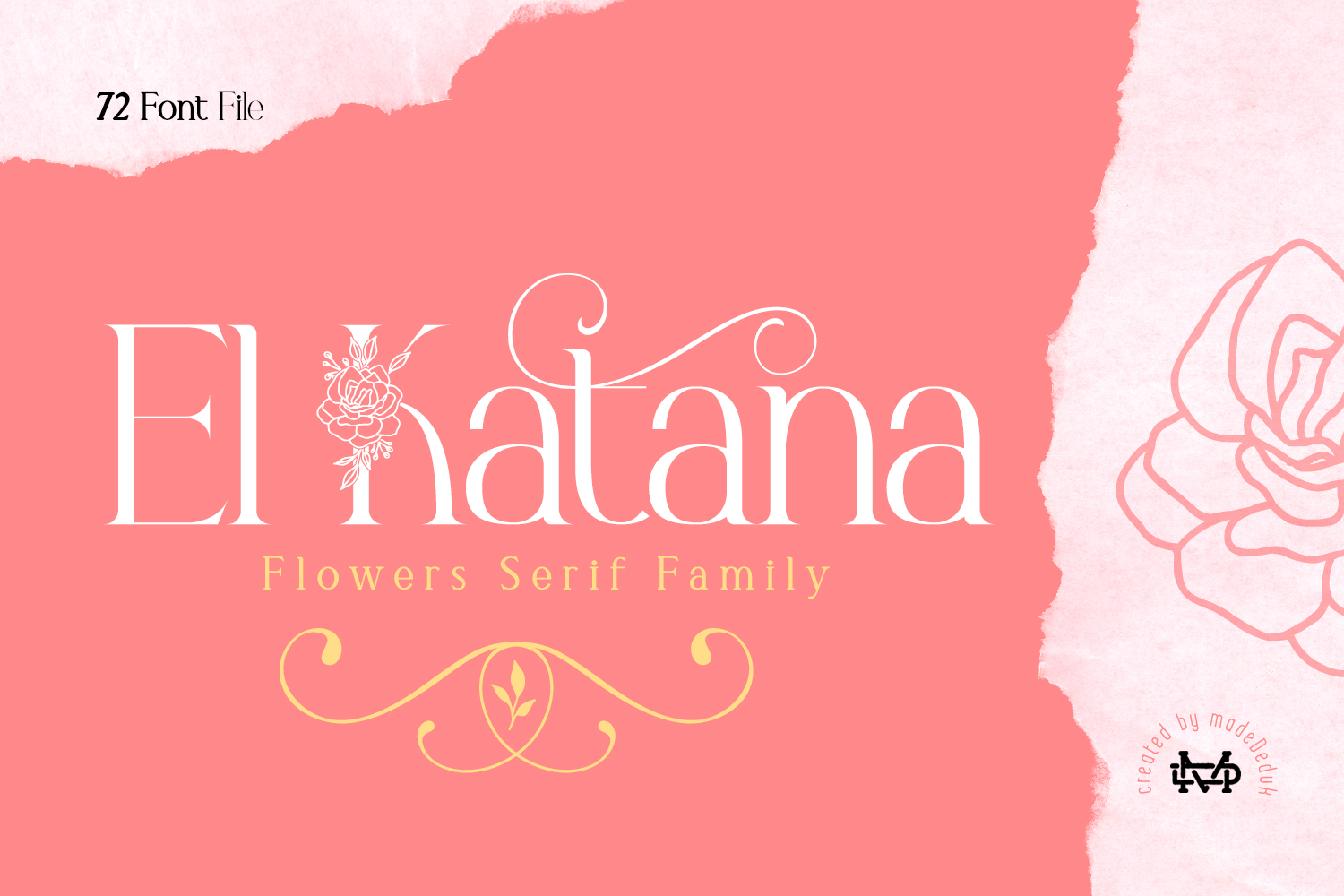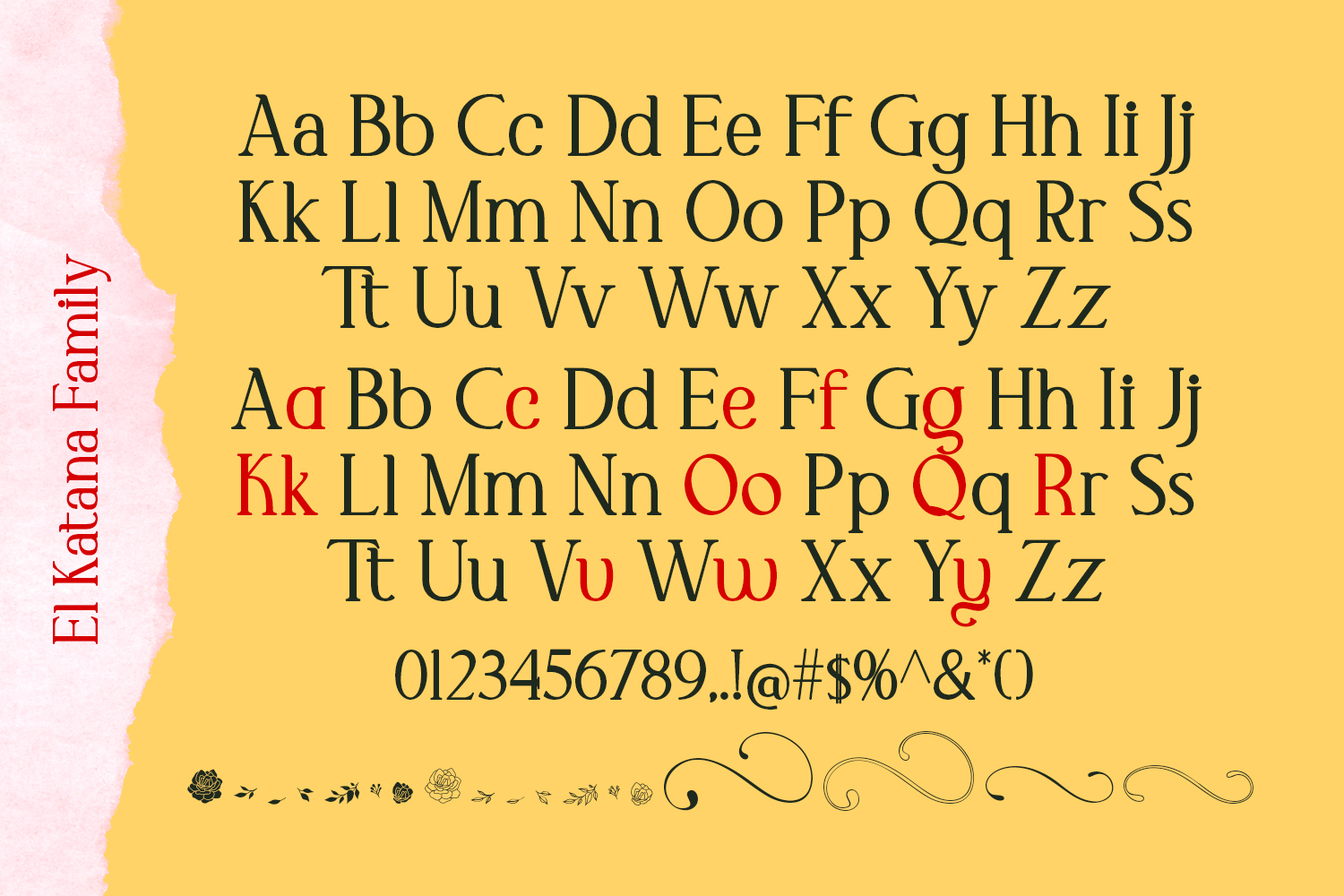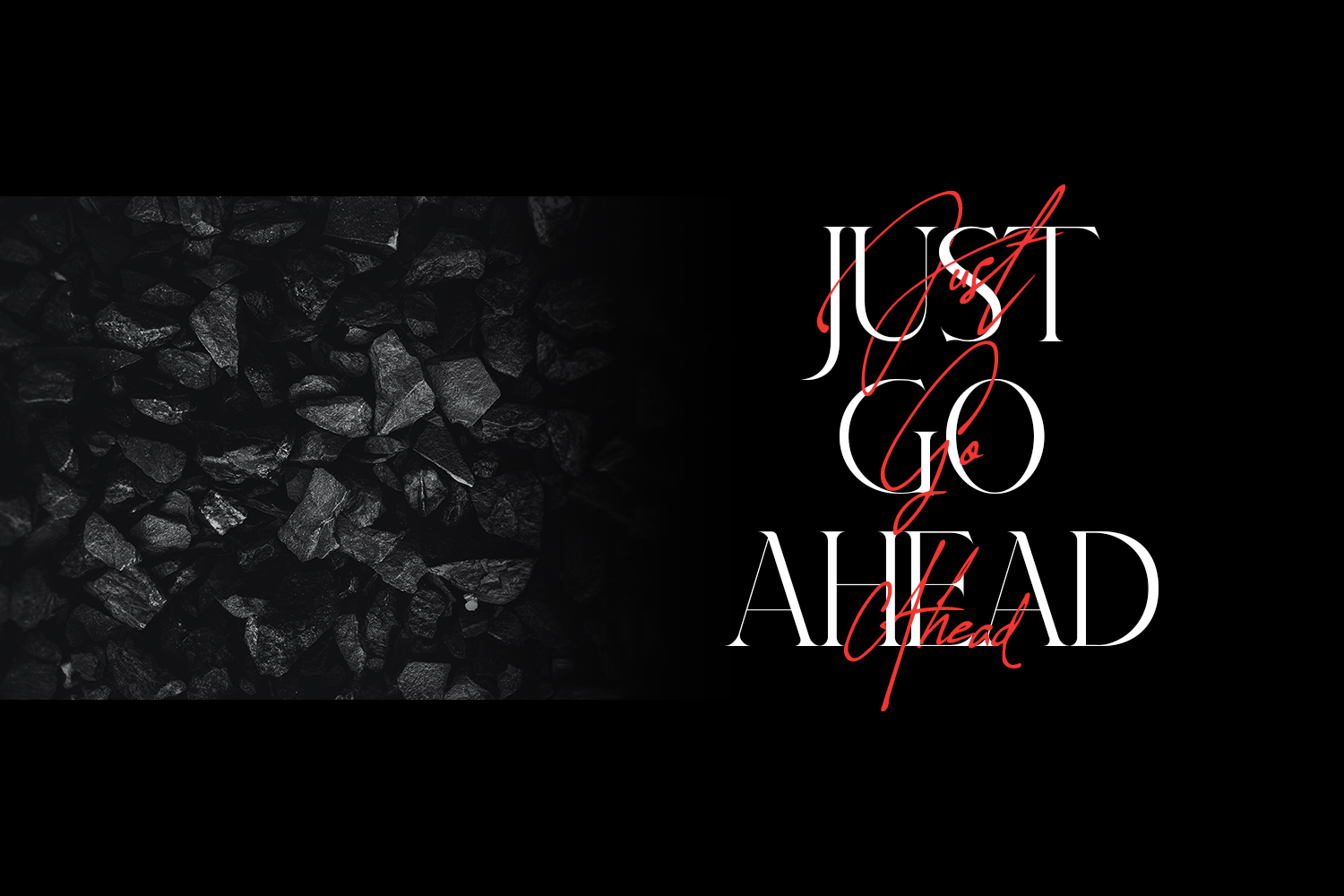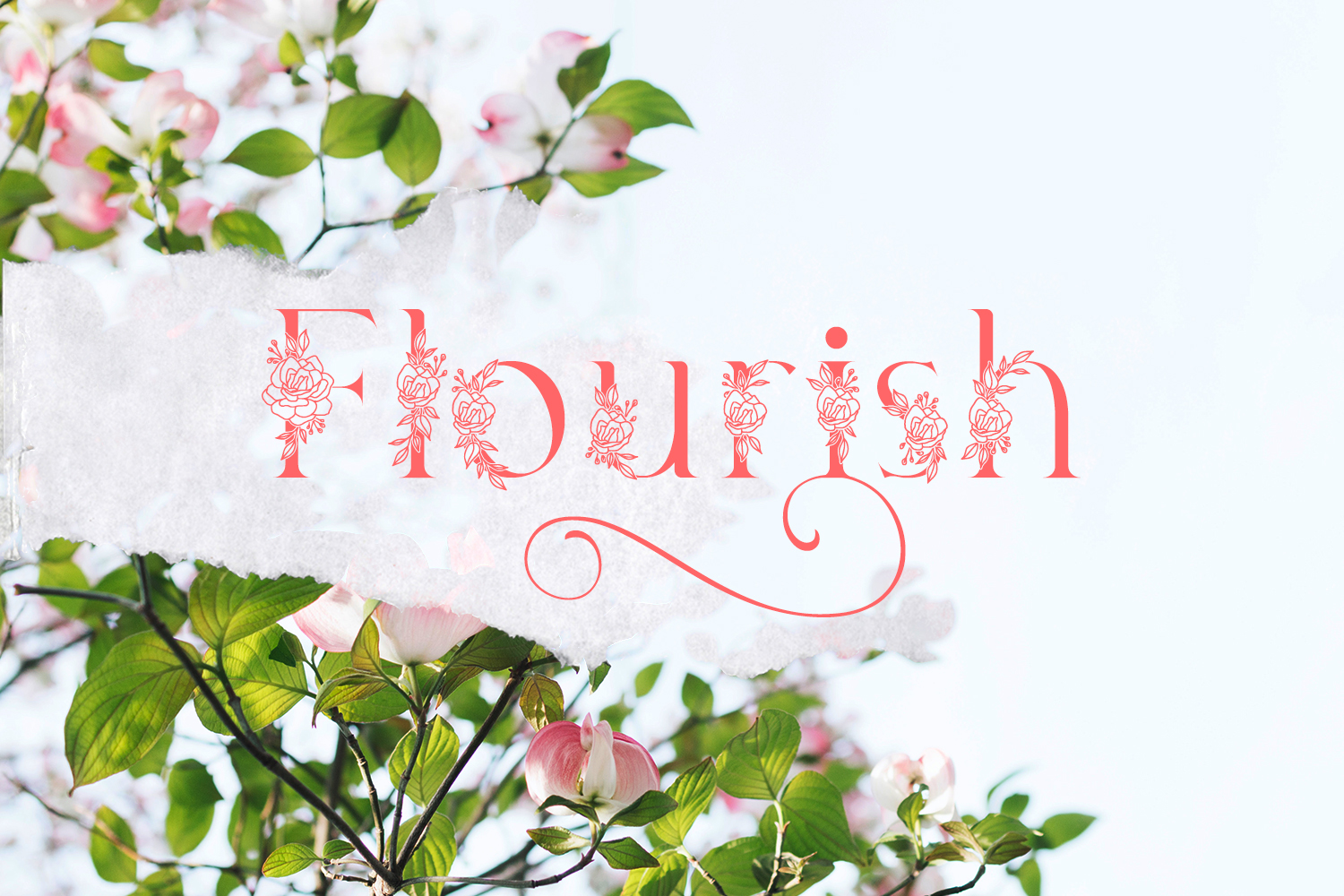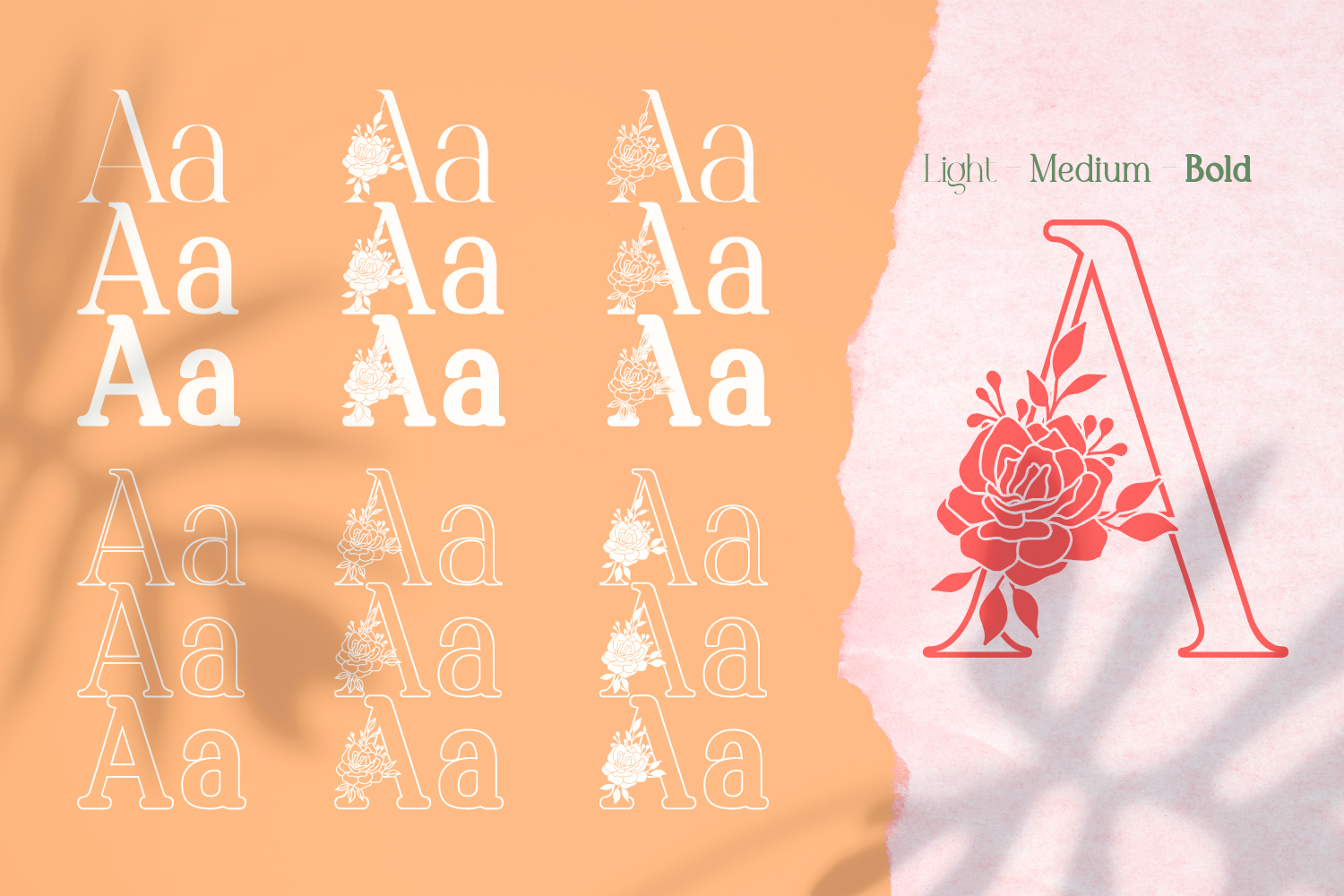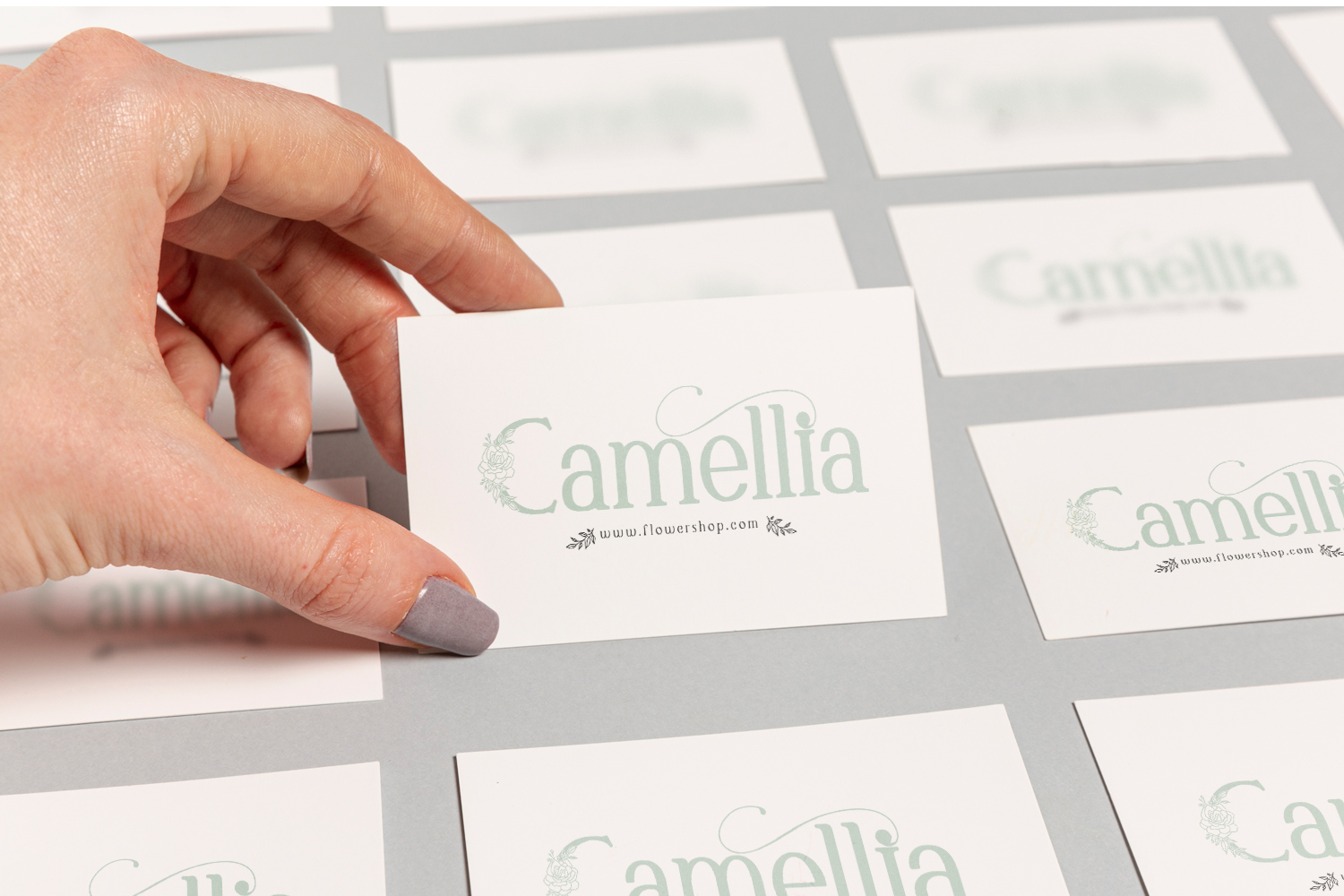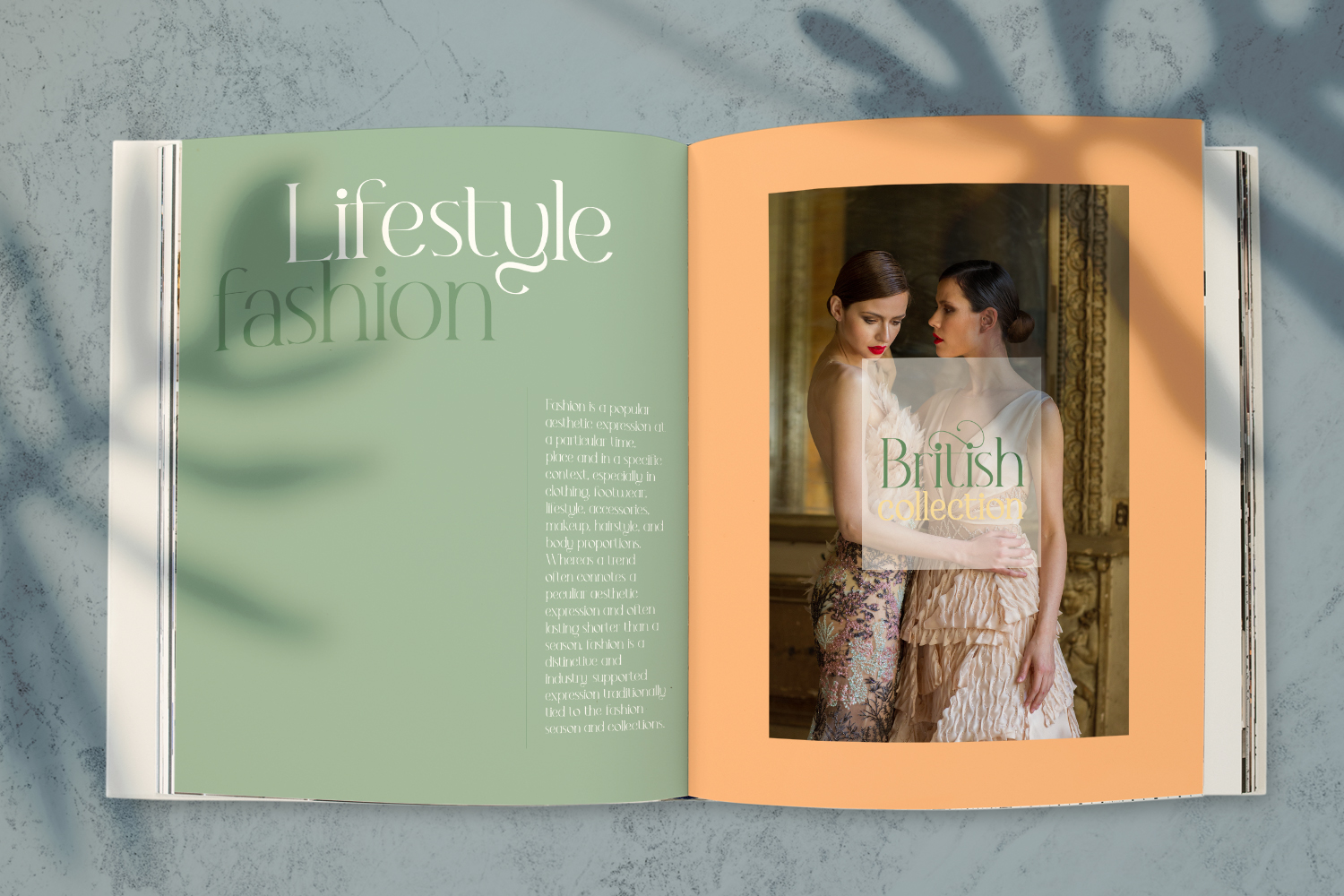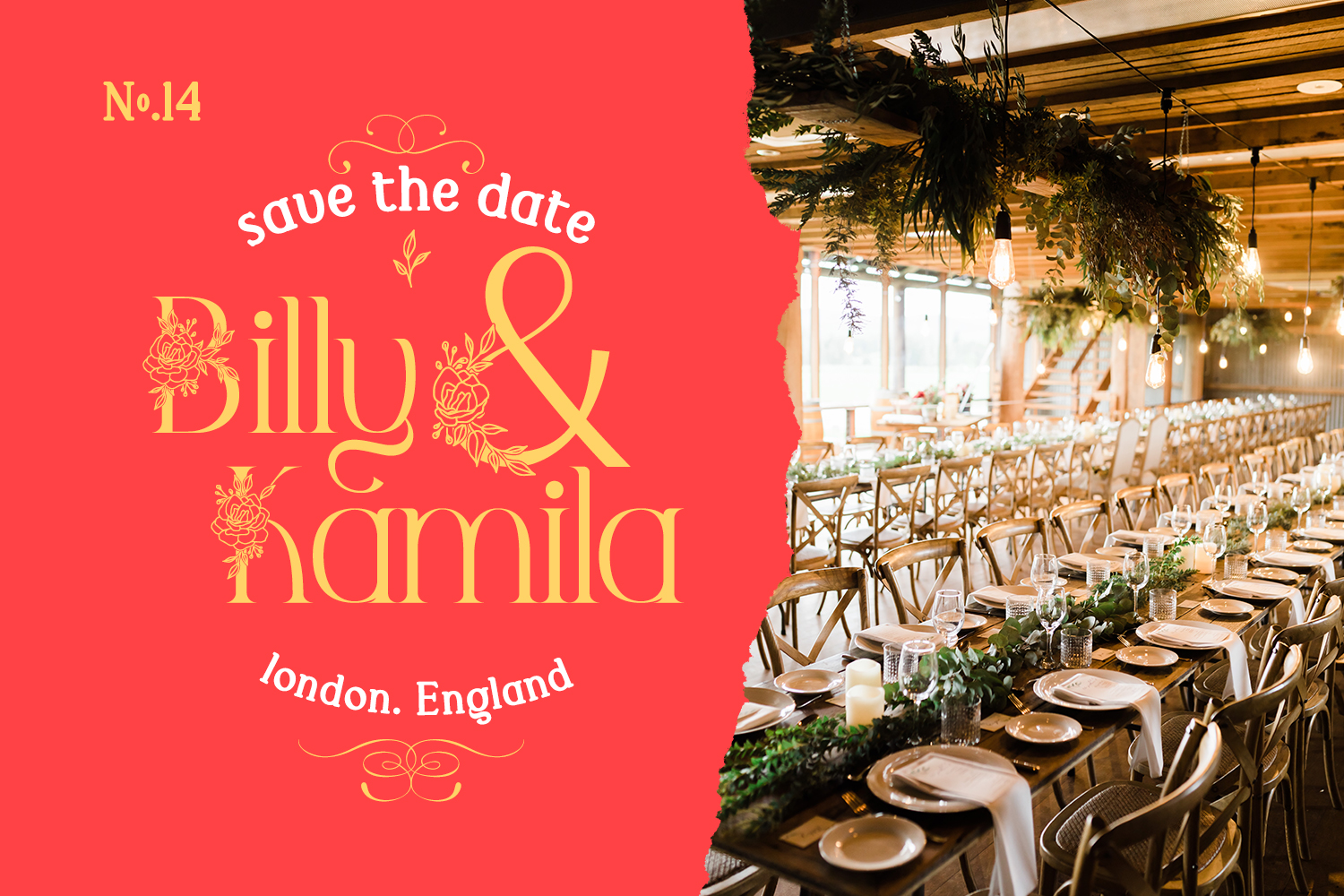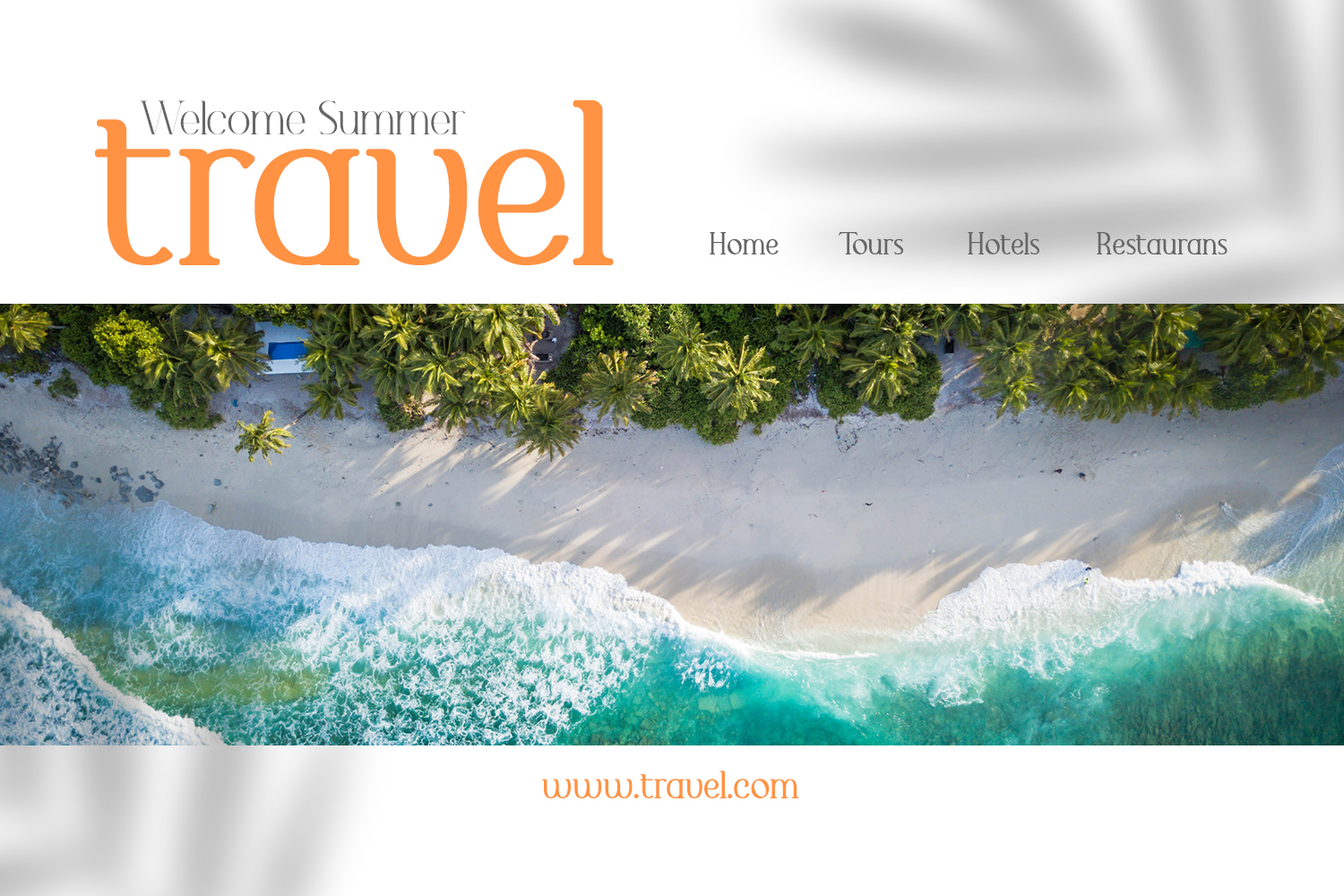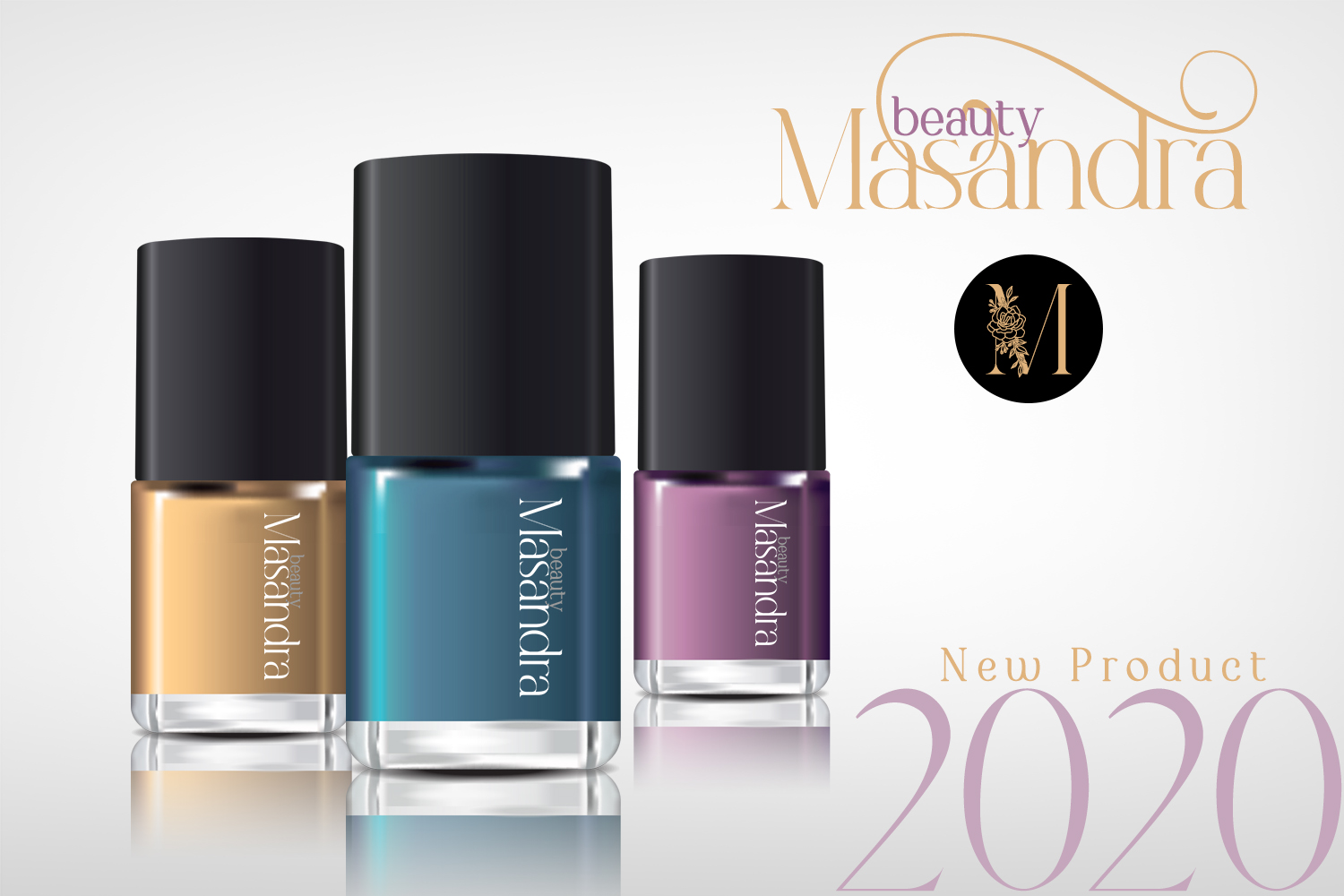
El Katana Family
El Katana is a luxury serif family with flowers in each type so you can safe more time to design and comes with much version! Comes with 72 font file, 3 weight and flourish ornament. A lot of stylish will makes this font suitable for your any project design.
• Uppercase & Lowercase
• Number & Symbol
• International Glyphs
• Ligatures